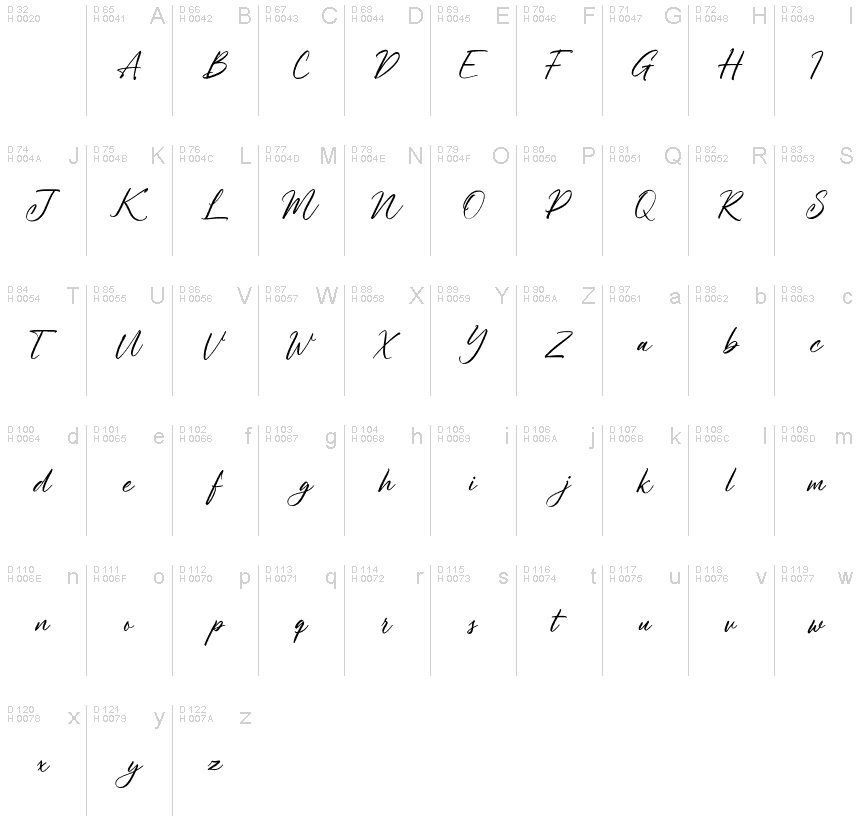
Hollycombs Free Regular
Hollycombs, crafted by the talented Maulana Creative, is a signature handwritten font that exudes elegance and warmth. With its semi-light weight, this font adds a touch of grace to any project. Perfect for wedding invitations, luxury branding, and fashion editorials, Hollycombs creates an exquisite ambiance that captivates audiences effortlessly. Its fluid strokes and unique curves bring a personal touch to logos, packaging designs, and social media graphics. Whether you're aiming for sophistication or creativity in your projects, Hollycombs will elevate your visuals with its refined yet approachable style.